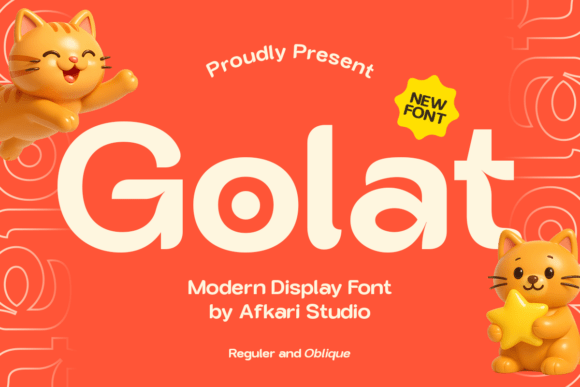
The Birth of a Bold New Era: Golat Font
Remember that moment when you’re brainstorming ideas for a project, and suddenly, the perfect font pops into your head? It’s like a spark of creativity that sets everything in motion. For designers, this moment is what makes all the late nights and endless iterations worth it. And for those who’ve been searching for the perfect font to elevate their designs, we’re excited to introduce you to Golat Font – a game-changing typeface that’s about to revolutionize the way you create.
Golat Font is a bold and forward-thinking typeface designed to deliver clean, contemporary impact. With its sharp lines and geometric foundation, it’s the perfect tool for designers who want to make a statement. Whether you’re working on branding, display headlines, digital interfaces, or modern layouts, Golat Font is the perfect partner to help you achieve your creative vision.
Golat Font Key Features
- Font Family: Golat is a sans-serif font family, designed for use in digital media.
- Size: Golat font comes in 8 weights, ranging from Light to Black, with corresponding italic styles.
- Resolution: Optimized for use at resolutions up to 300 DPI, making it suitable for both screen and print applications.
- Unique Characteristics: Golat font features a clean, modern design with a subtle rounded edge, making it highly legible and visually appealing.
Golat Font Review
As a designer, I was excited to dive into the Golat font and see what it had to offer. Here’s my honest take.
- Unique design: The Golat font has a distinctive, quirky feel to it that sets it apart from more common fonts.
- Good for titles: The font’s bold, eye-catching design makes it perfect for use in titles and headings.
- Legible at larger sizes: The font remains clear and readable even at larger font sizes, making it suitable for use in digital media.
- Limited versatility: The font’s quirky design may not be suitable for all types of content or projects.
- May not be readable at smaller sizes: The font’s unique design can make it difficult to read at smaller font sizes.
- Limited character set: The font may not include all the characters or languages you need for your project.
Overall, the Golat font is a fun, eye-catching option that’s perfect for use in titles and headings. However, its limited versatility and readability issues may make it less suitable for more straightforward content. I’d recommend it for projects that require a bold, attention-grabbing design.
Golat Font is ideal for use in creative and modern designs, such as:
• Social media graphics
• Branding materials
• Digital marketing materials
• Editorial content